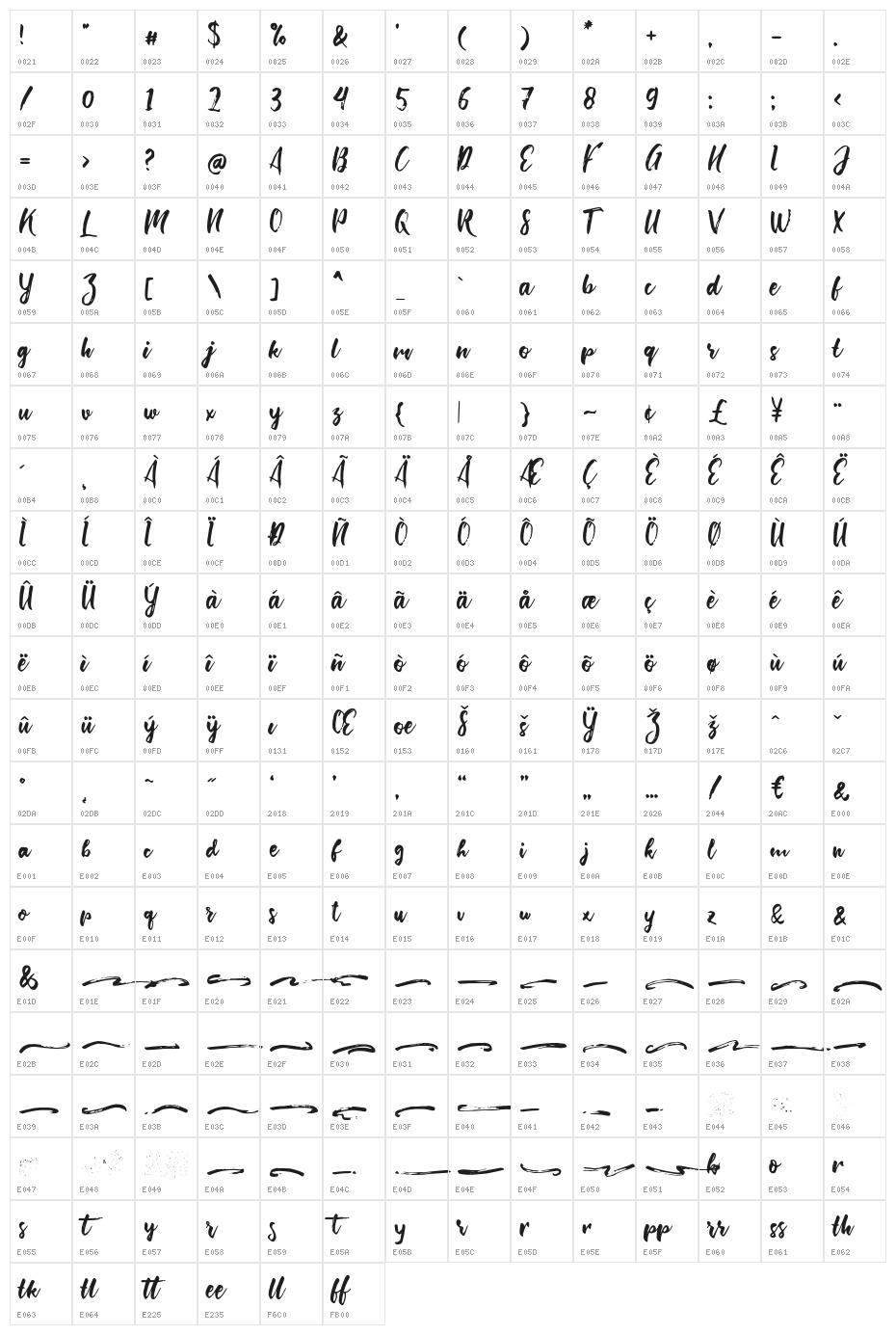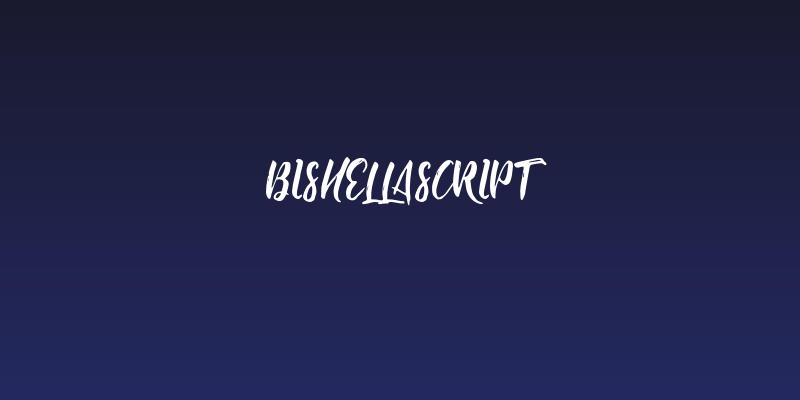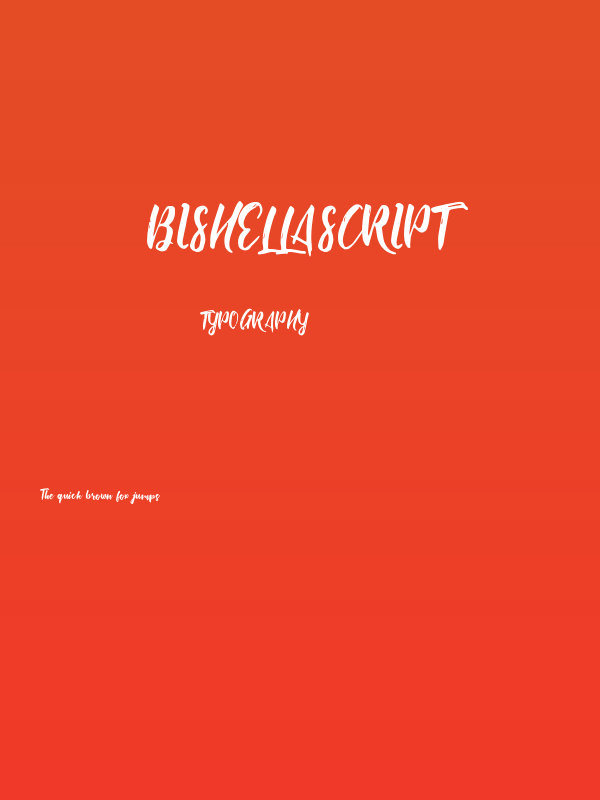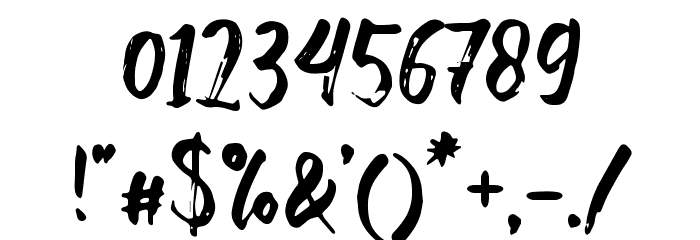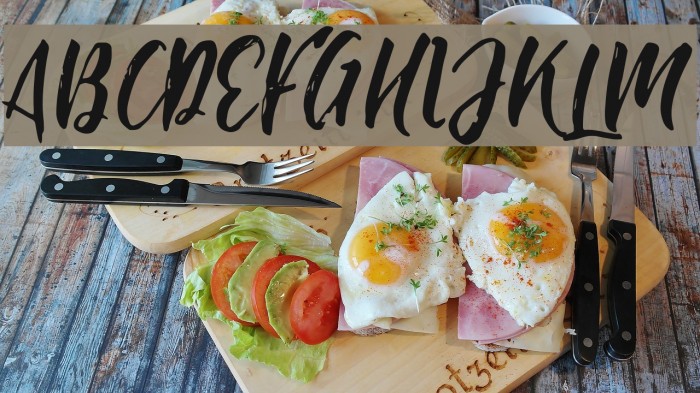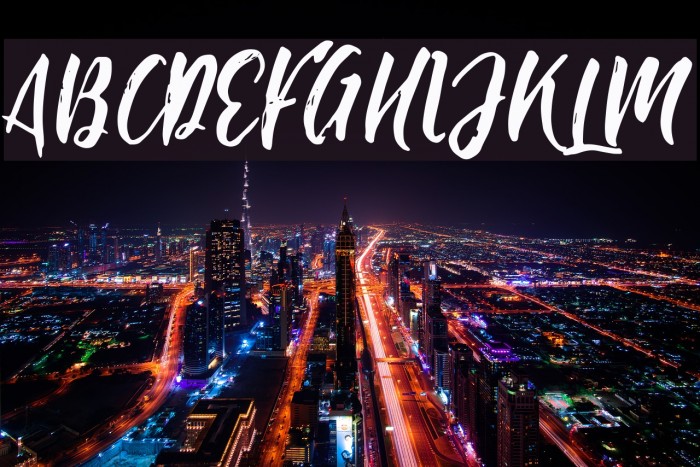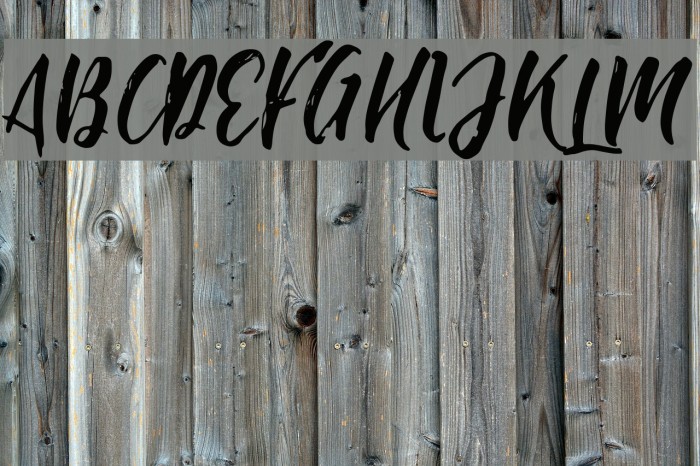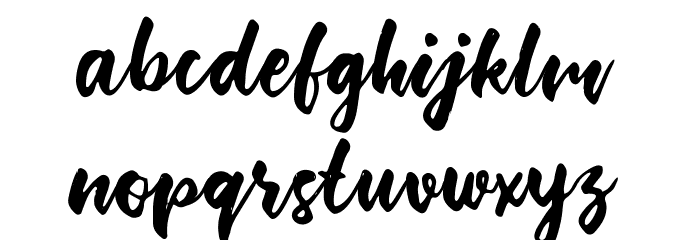
BishellaScript Font
BishellaScript Description
This font features a bold, expressive script style with a hand-painted appearance. The strokes are thick and dynamic, giving it a lively and energetic feel. The uppercase letters are particularly striking, with sweeping curves and flourishes that add a sense of movement. The lowercase letters maintain a consistent style, complementing the uppercase with their fluid and connected forms. Numbers and special characters are designed to match the overall aesthetic, ensuring a cohesive look across all text. The font's brush-like texture adds a personal touch, making it ideal for creative and artistic projects.
| Proposed Projects | Ideal for branding, invitations, posters, and any project requiring a personal, artistic touch. |